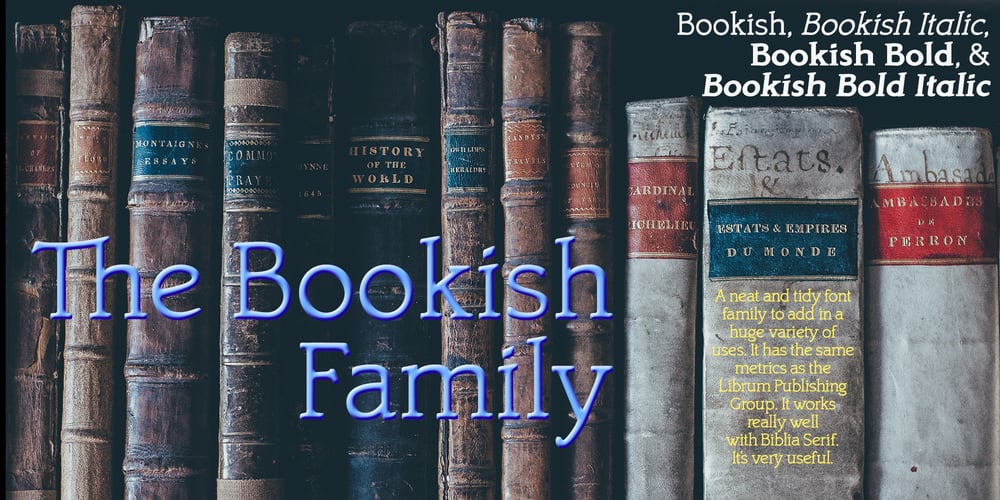
Bookish Font Family was designed by David Bergsland and published by Hackberry Font Foundry. Bookish contains 4 styles and family package options. This all started with a love for Jenson. I know there’re hundreds of variations on that theme. But, that is where I began, several years ago. How far it came, as usual as I wandered through the vagaries of font design, is not unusual. If you’ve read any of my font design books, you know my design processes are quite loose and spontaneous. I wanted the general feel of a favorite old font, but softer, easier, and more comfortable. I built these on the same vertical metrics as my Librum Publishing Group. However, this family is not part of that group. I used the metrics because that shows my current taste in fonts. This family does work with the Librum group—but to be honest, I haven’t experimented enough to come up with a good companion. I suspect I’ll need to make another companion family. I may need make a non-modulated bold version also. But, that remains to be seen. I’m pleased with this.